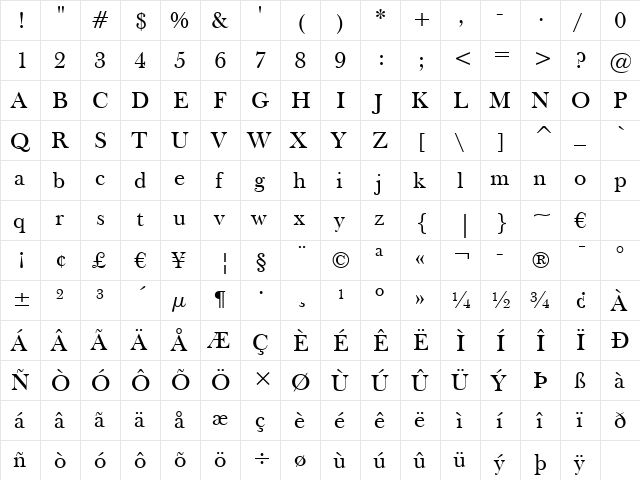
FrysBaskerville BT Roman Font Preview
FrysBaskerville BT Roman
FrysBaskerville BT Roman Font Details
Design Context for FrysBaskerville BT Typeface
FrysBaskerville BT offers clean, dependable letterforms without strong stylistic allegiance, making it a practical choice for designers who need flexibility.